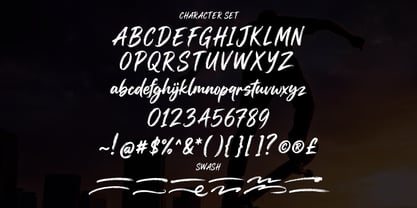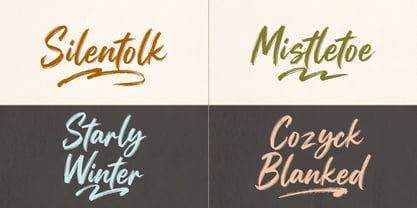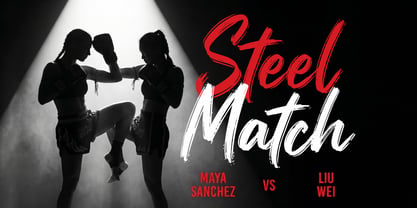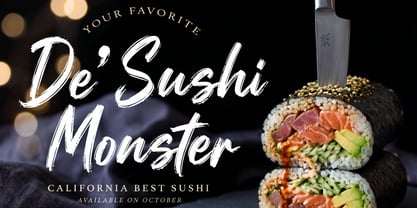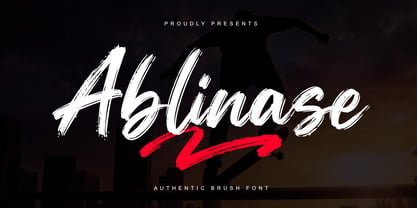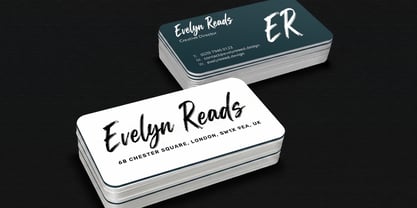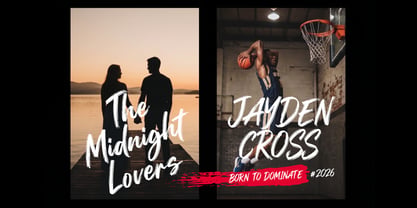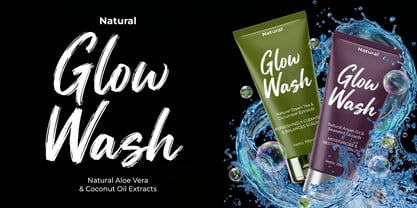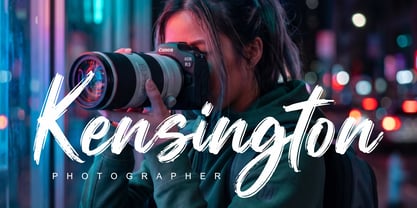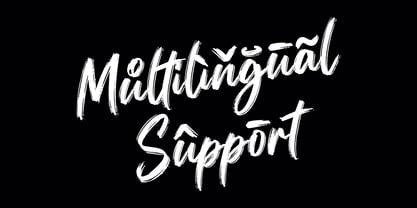
Ablinase
The Ablinase Font Family was designed by Saiful Anwar and published by Sealoung. Ablinase contains 1 styles. More about this family
Ablinase – Authentic Brush Font
Ablinase is a bold brush font featuring strong strokes and a natural hand-painted texture. Built with a dynamic flow and rough details, it delivers a striking and authentic visual impact.
This typeface is designed to stand out in a wide range of creative projects, combining expressive letterforms with a modern and energetic style.
• Uppercase & Lowercase Characters
• Numerals & Punctuation
• Natural Brush Texture
• Dynamic Stroke Style
• Multilingual Support
• PUA Encoded Characters
• Swash
Ablinase offers a strong visual presence with a handcrafted feel, making it ideal for bold and impactful typography.